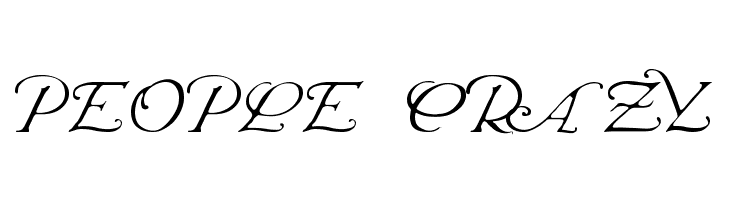
Battlefield Super-Leftalic Font
- Font: Battlefield Super-Leftalic
An elegant script font with ornate swashes and high contrast, ideal for formal designs.